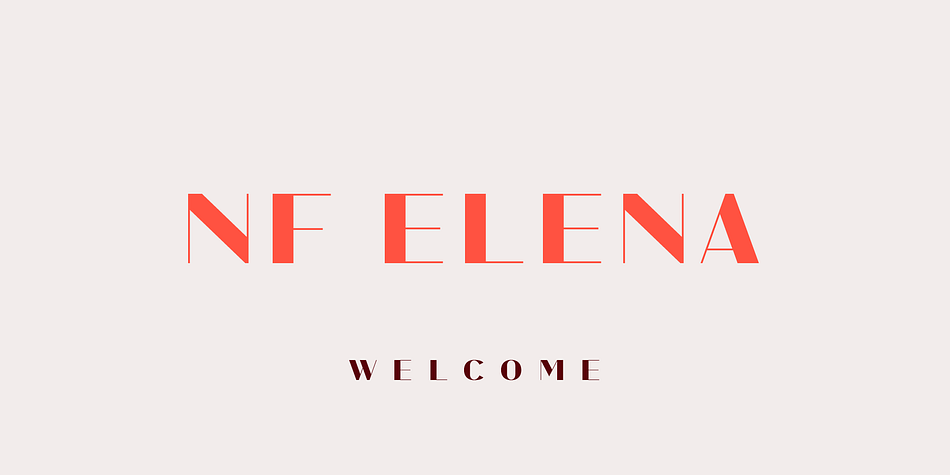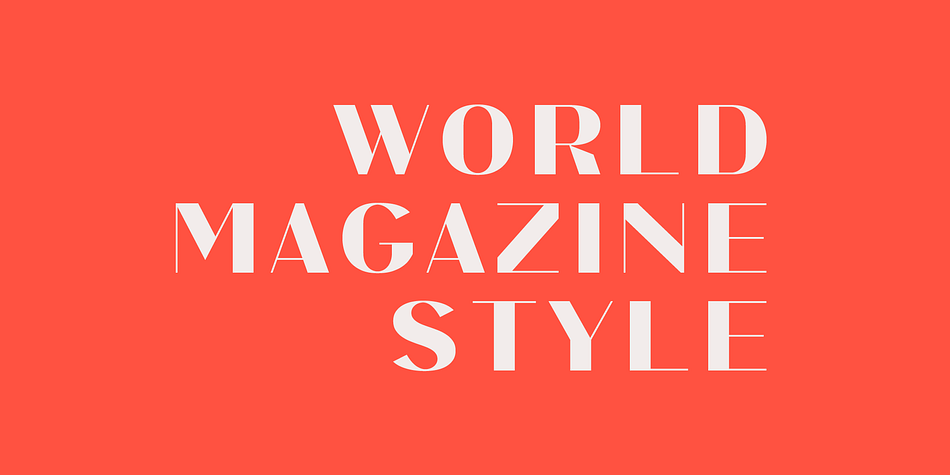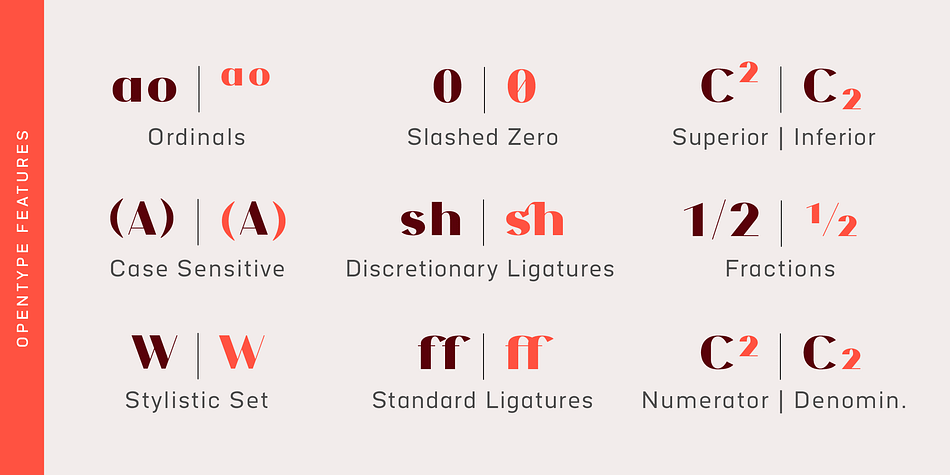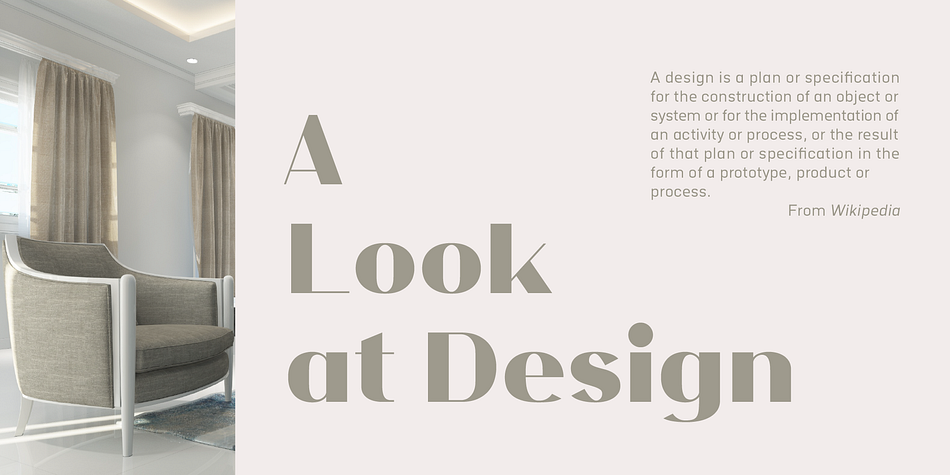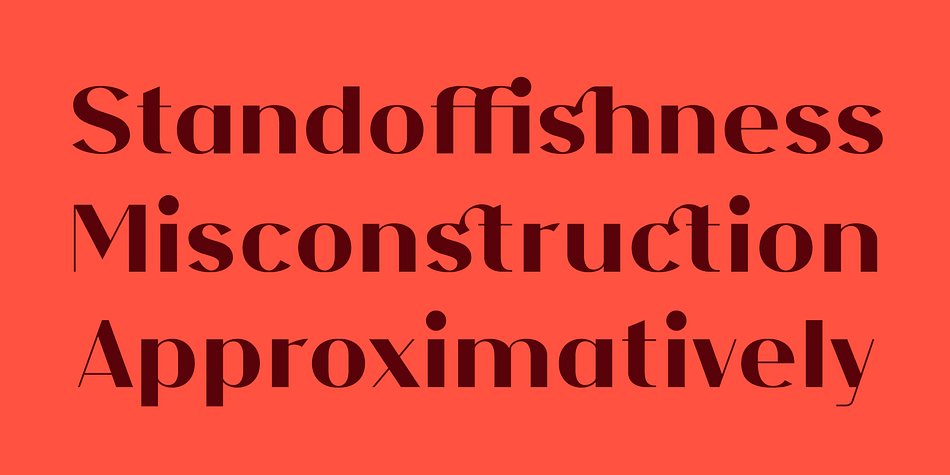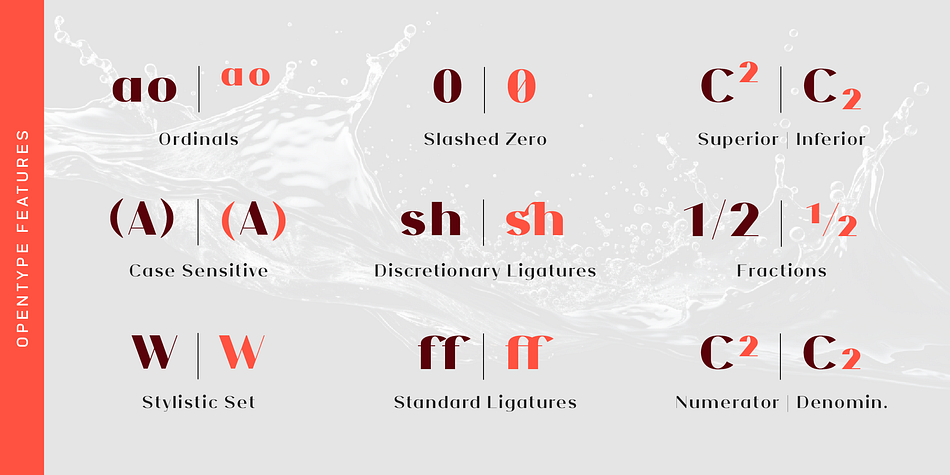
NF Elena
Designed by Nikolay Savchuk, NF Elena is an art deco and display sans font family. This typeface has five styles and was published by NicolassFonts.
NF Elena was designed by Nikolay Savchuk. NF Elena was created on base Katerina sans-serif typeface. It is brilliantly suited for graphic design and display use and perfect for magazines, newspapers, books, websites, brand identity, and advertising.
Styles Art Deco, Display Sans
Designer Nikolay Savchuk